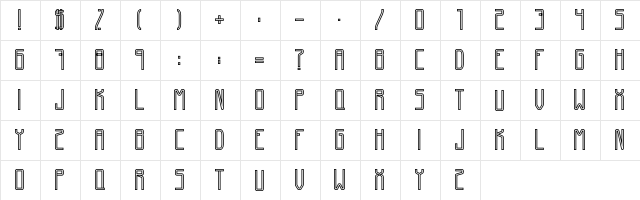
GiantFont Regular
Design Context for GiantFont Typeface
GiantFont is a composed and adaptable typeface that performs quietly and consistently across a wide range of design contexts.